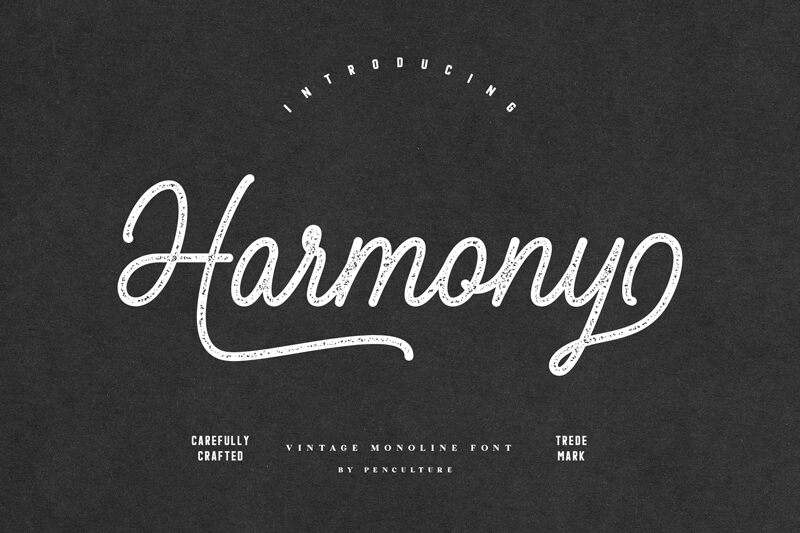
Harmony Stamp, a captivating addition to the Harmony font family designed by Pen Culture, brings a touch of nostalgia with its retro handwritten style. This light-weight font exudes elegance and is perfect for projects seeking a vintage feel. It gracefully enhances wedding invitations, creating an air of romance. Its delicate strokes also make it suitable for fashion blogs, adding a whimsical touch to articles on vintage clothing. Harmony Stamp's timeless charm is equally suited for branding projects, evoking a sense of authenticity and sophistication. Let this font transport your designs to the golden era while maintaining modern appeal.
Designed by Revo Farisky from Pen Culture in 2022